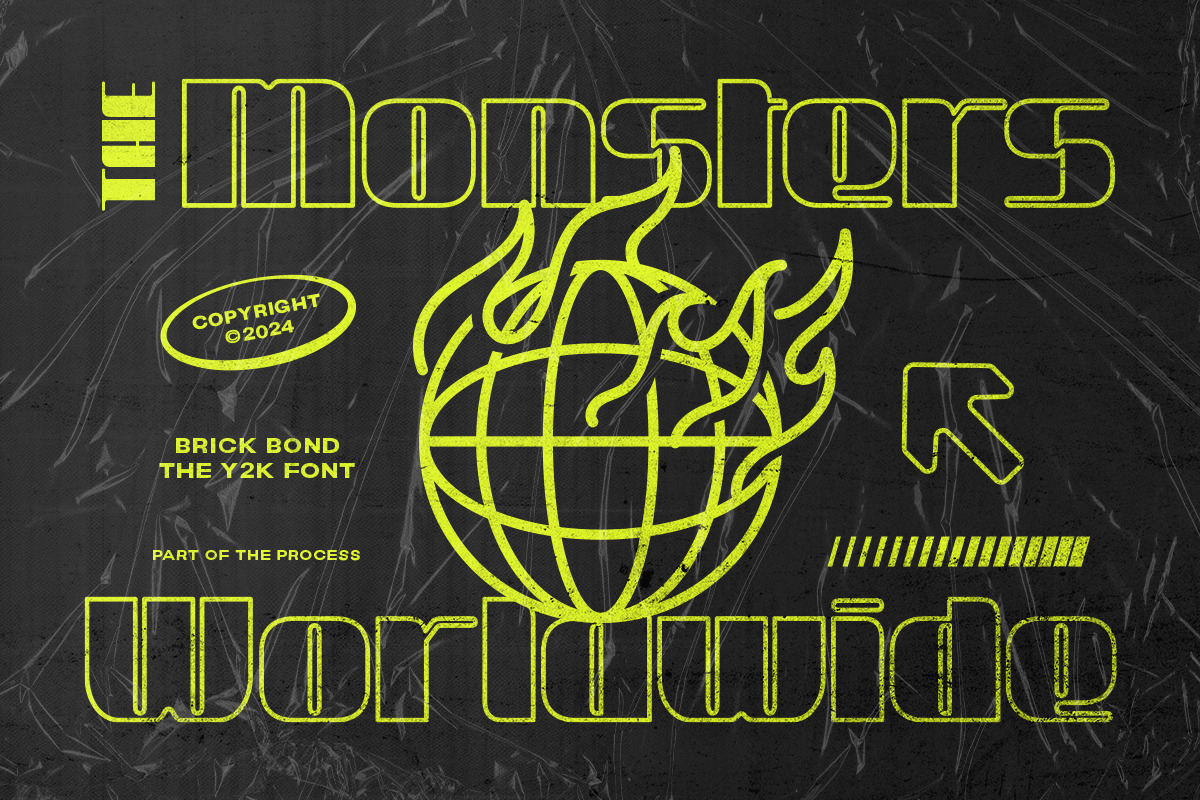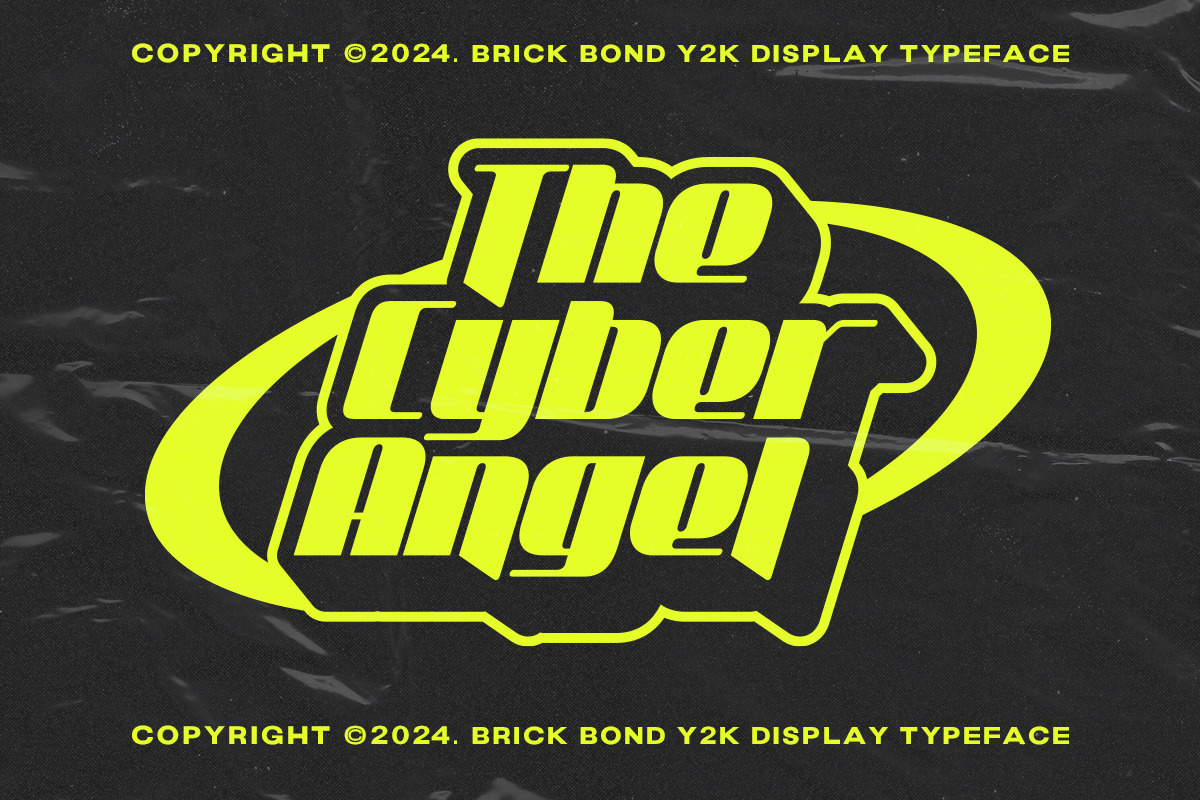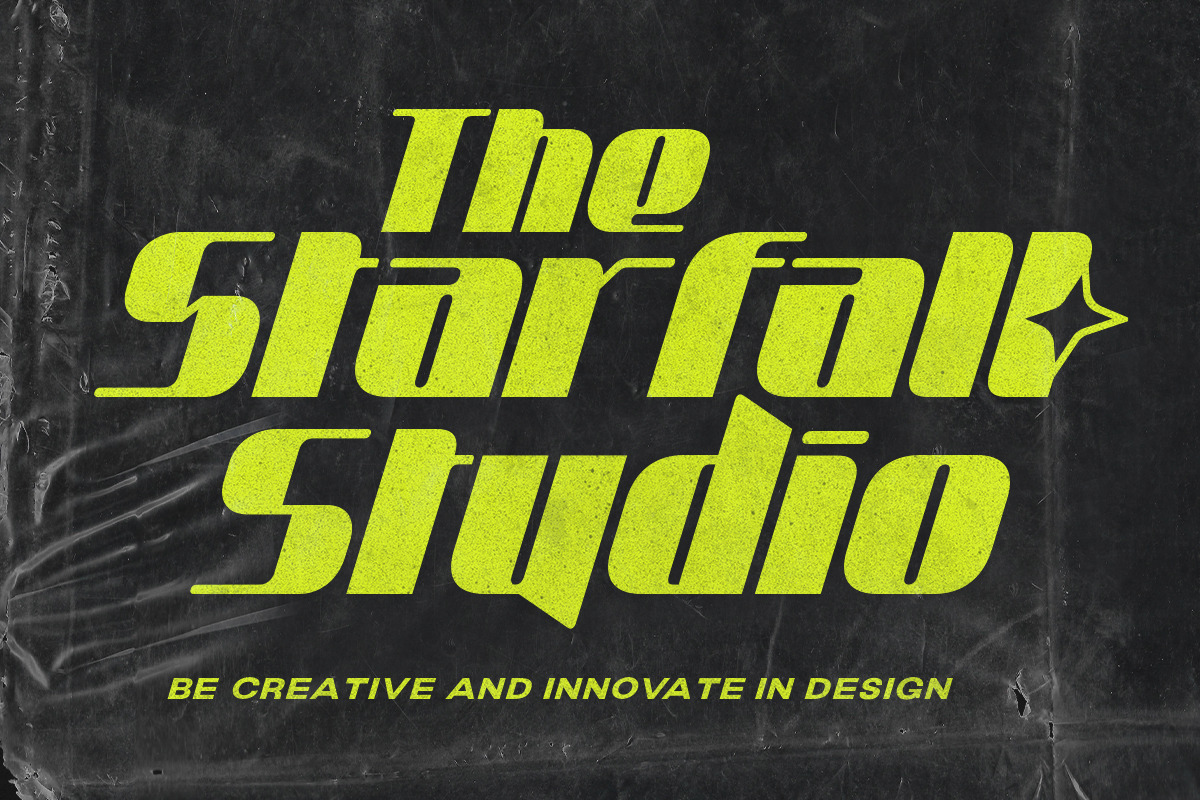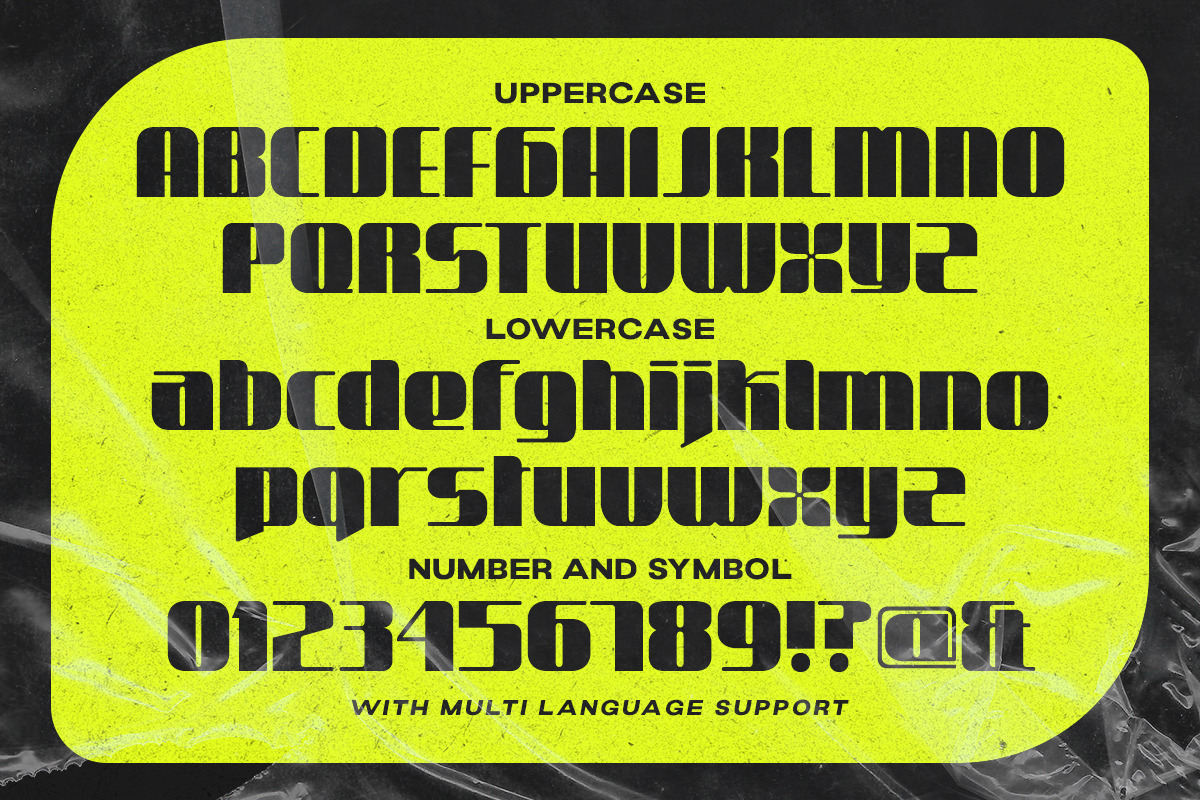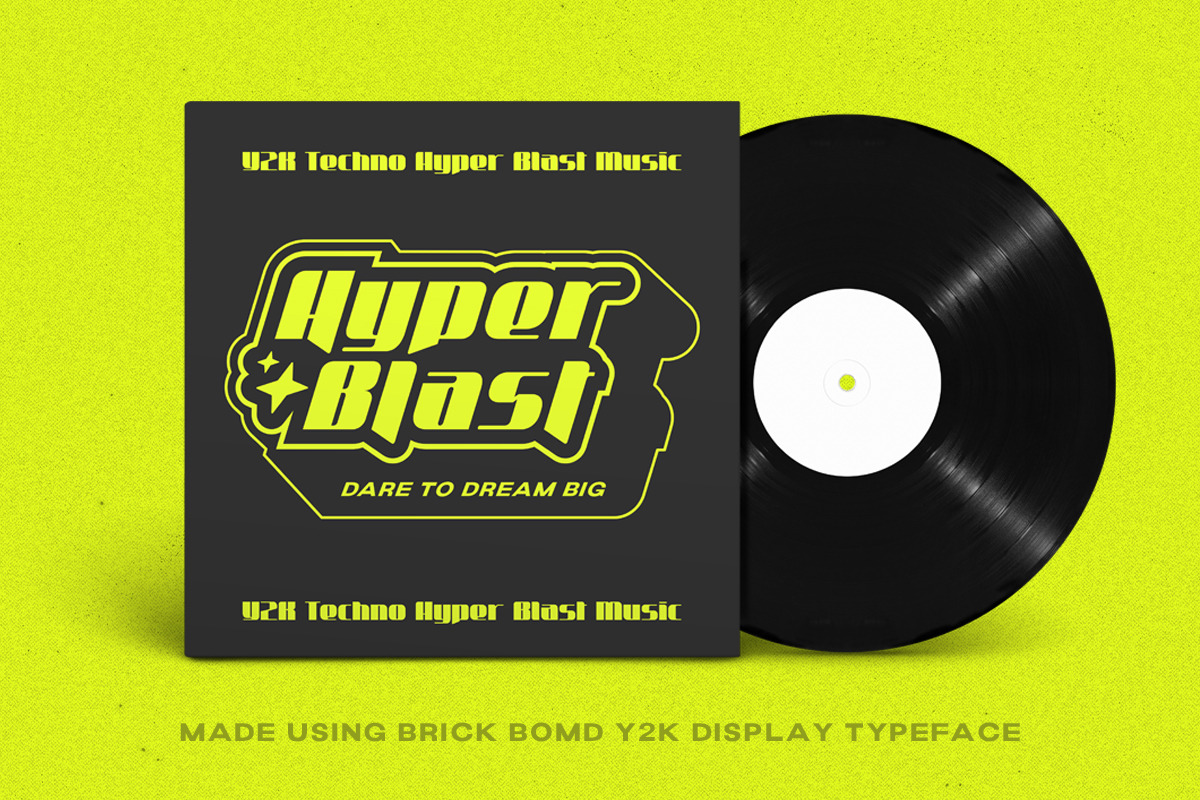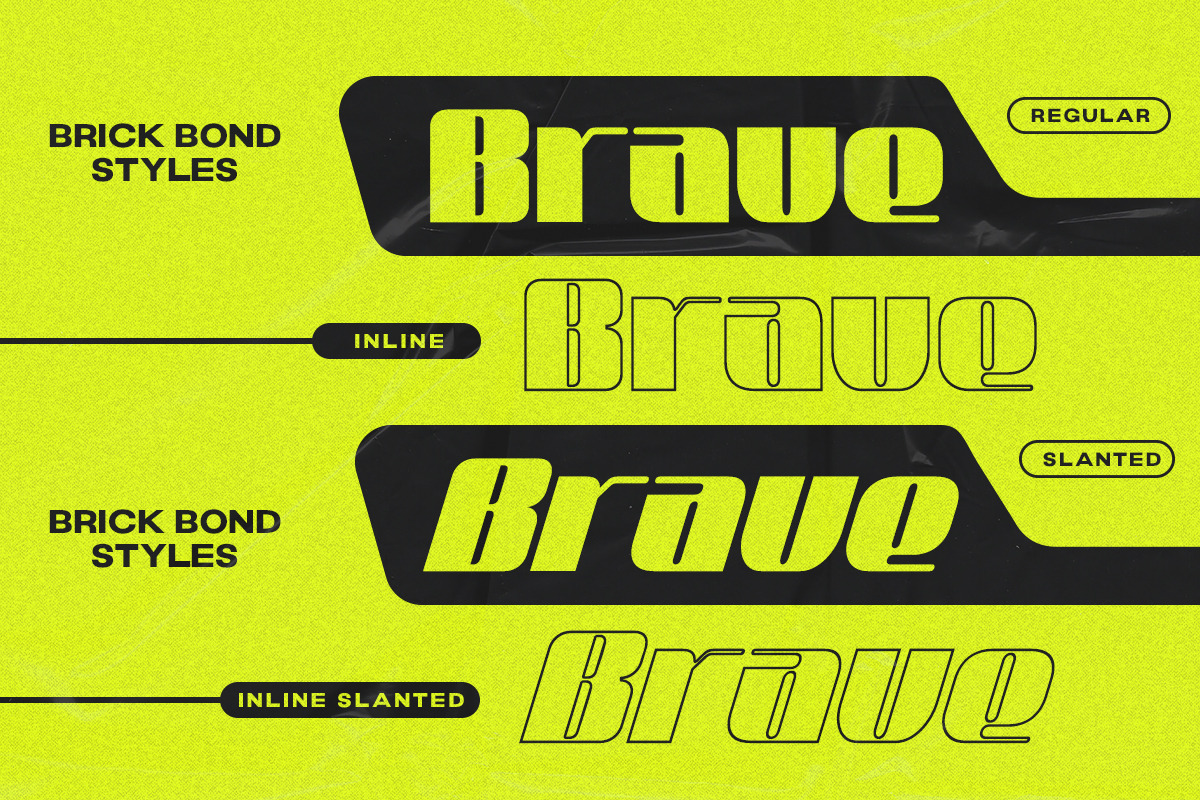
Brick Bond Y2K Display Typeface
Our collection now features trendy Y2K display fonts! Introducing Brick Bond, with a futuristic touch that makes your designs shine. Comes with outline and slant version. Its bold shape draws attention to titles, headlines, and key elements, ensuring your work is noticed.